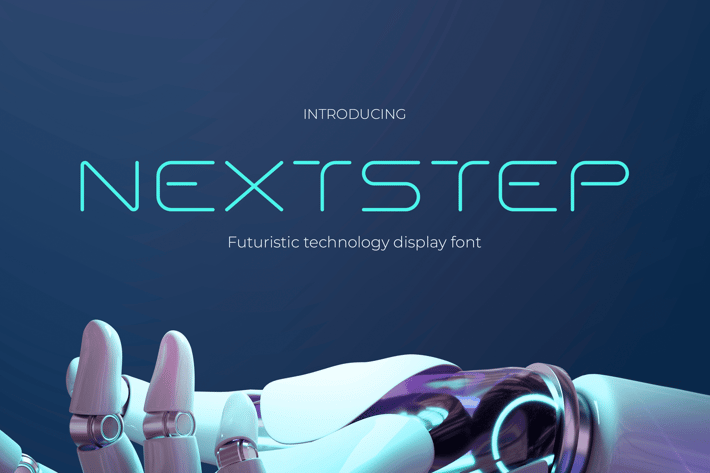
Nextstep: Futuristic Techno Font
Nextstep is the perfect font for those looking to take their designs into the future. With its sleek and modern style, this techno-futuristic font is perfect for any project that conveys a sense of innovation, advancement, and technology. Whether you're designing a magazine cover, creating a poster for a tech event, or designing a website for a futuristic product, Nextstep will help you convey your message in the most effective way possible.
With its clean lines and bold design, Nextstep is also perfect for any project related to sci-fi, space, or gaming. Its futuristic look and feel make it the perfect choice for creating digital interfaces, video game titles, and other digital content that needs to convey a sense of cutting-edge technology.
Nextstep is a font that is designed for the modern age. With its focus on technology, gadgetry, and the metaverse, it is the perfect choice for anyone who wants to create stylish and innovative designs. So take the next step forward and try Nextstep today.
Use Nextstep for future and gadget-segmented magazines, posters, movie titles, music posters, youtube covers, youtube thumbnails, social media page covers, and so on.